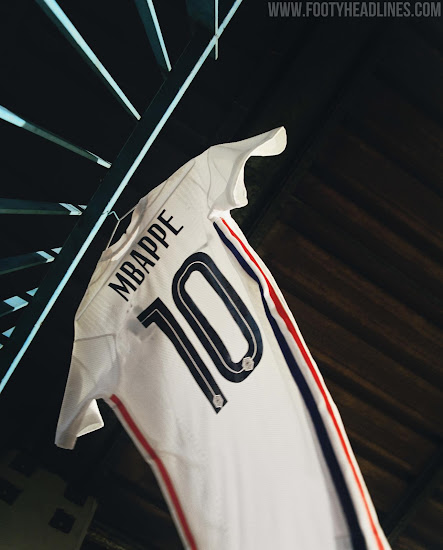
France Euro 2020 Kit Font Released - Inspired By Typography Found In Old Book In Lyon
Together with the new France Euro 2020 home and away kits, Nike also released a new kit typeface for the France national football team.
France 2020 Typeface
The new France UEFA Euro 2020 has a classic-inspired design. The font on the France 2020 home kit is white / navy, while the font on the France 2020 away kit is royal blue / white.
As released by Nike, the exclusive Nike 2020 National Team Kit font is "inspired by typography found at an institute of book history in Lyon".
Just as it was the case with the 2018 font, the official FFF crest is placed on the bottom of the new France UEFA Euro 2020 font. The font also again comes with a subtle pattern of hexagons, inspired by the geometric shape of France.
France is set to debut their custom UEFA Euro 2020 jersey font in the UEFA Nations League match against Sweden on September 5 2020.